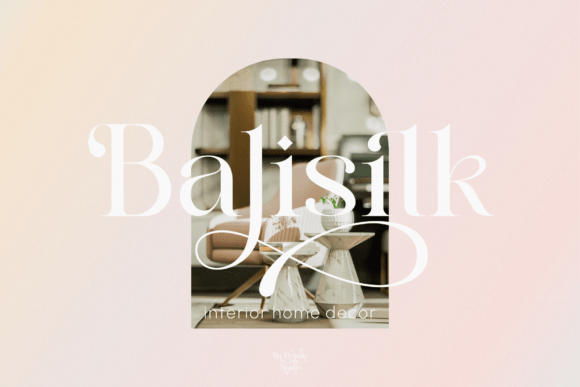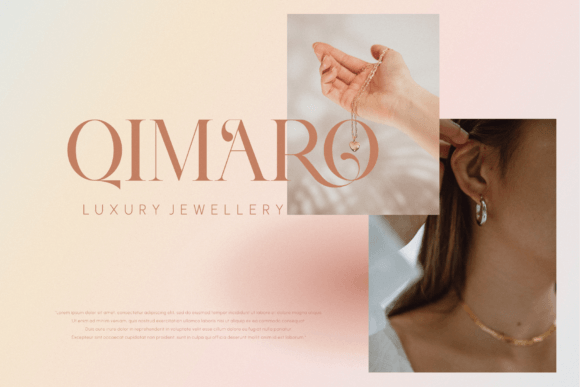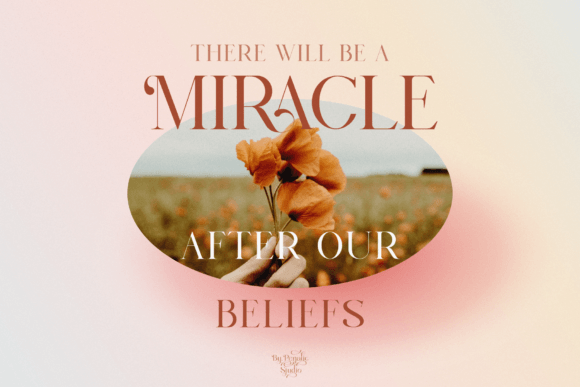
Introduction to Rushtick Font
Have you ever been working on a creative project, pouring your heart and soul into it, only to feel like something’s missing? You’ve got the perfect concept, the ideal color palette, and a story to tell, but the typography just isn’t doing it justice. This is where the Rushtick Font comes in – a modern serif ligature font that will elevate your design to the next level.
As a designer, you know how crucial it is to have a reliable design resource at your fingertips. The Rushtick Font delivers with its high-quality, finely designed glyphs and swashes that will add an extra layer of elegance to your work. Whether you’re creating a logo, social media post, or product packaging, this font is the perfect addition to your design arsenal. And the best part? It’s PUA encoded, making it easy to access all the glyphs and swashes you need.
Key Features of Rushtick Font
- High-quality font with a unique, bold design perfect for creative projects.
- Features a large character set, including uppercase and lowercase letters, numbers, and punctuation marks.
- Suitable for use in a variety of design contexts, from headings and titles to logos and branding elements.
Honest Review: Rushtick Font
One of the standout features of the Rushtick Font is its versatility. It works well for a wide range of projects, from logos and branding materials to web designs and social media graphics. ✨ Its clean and modern design makes it a great choice for anyone looking to give their project a sleek and professional feel.
- May not be suitable for projects that require a more traditional or vintage feel
- Some users may find the font too modern or trendy
Overall, I’m really impressed with the Rushtick Font and would highly recommend it to anyone looking for a high-quality, versatile font for their creative project. ⚠️ Just be aware of the potential limitations, and you’ll be all set for a successful design experience.
Rushtick Font
Tips for Getting the Most Out of Rushtick Font
Use the Rushtick Font with a transparent background to create a seamless design. Experiment with different font sizes, colors, and styles to find the perfect combination for your project.
The Rushtick Font is ideal for creative projects such as logos, business cards, social media graphics, and presentations. Its high-quality design makes it perfect for any project requiring a stylish and professional touch.